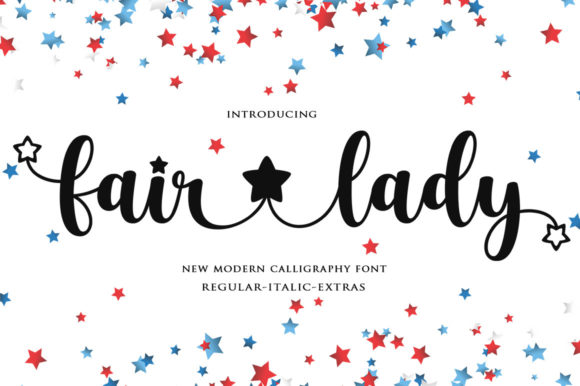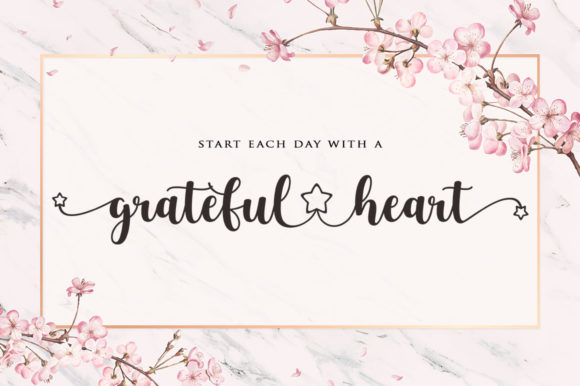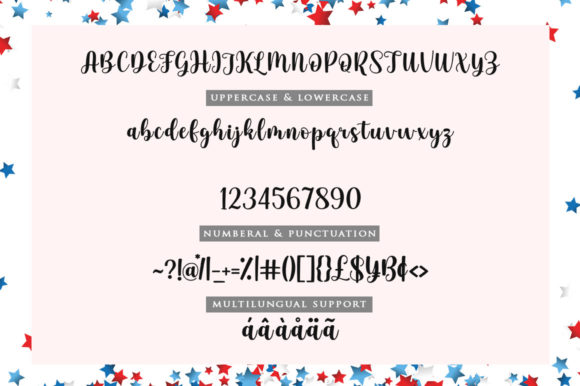
Fairlady Font
Fairlady is a dazzling script font. This font is neatly crafted and highly detailed. It is PUA encoded which means you can access all glyphs and swashes with ease!